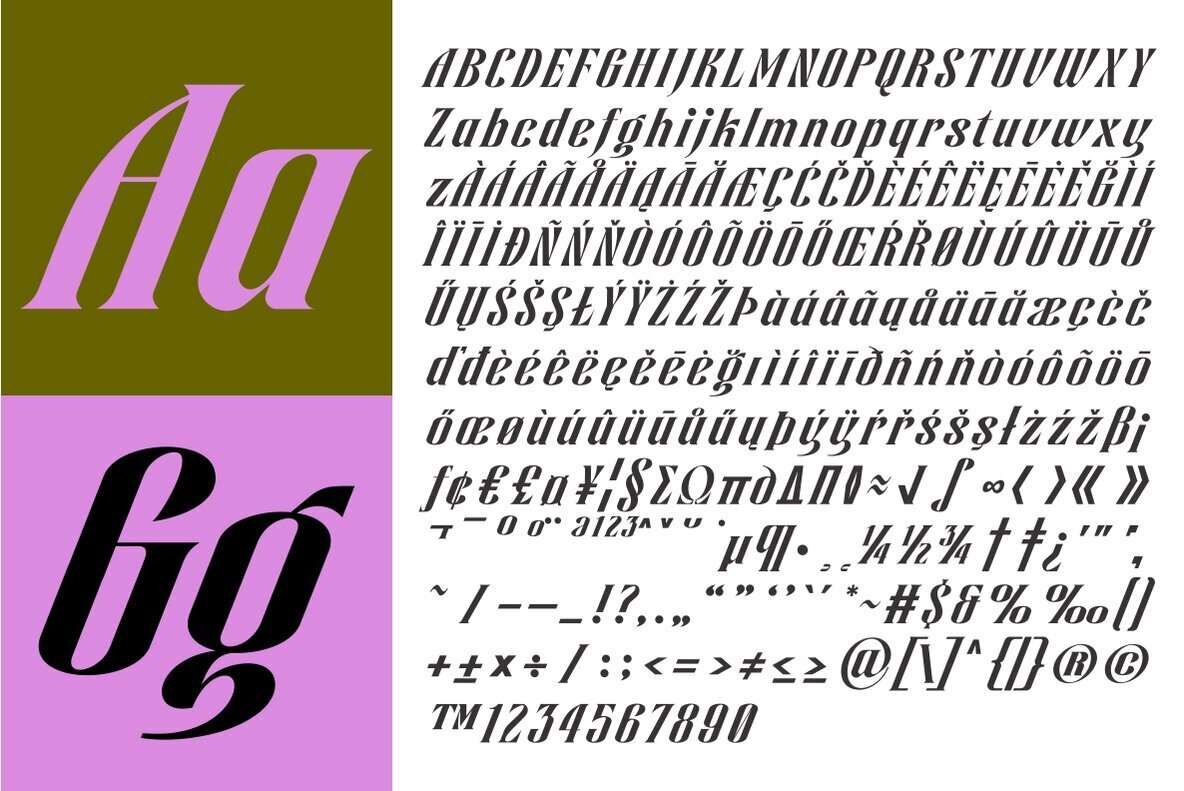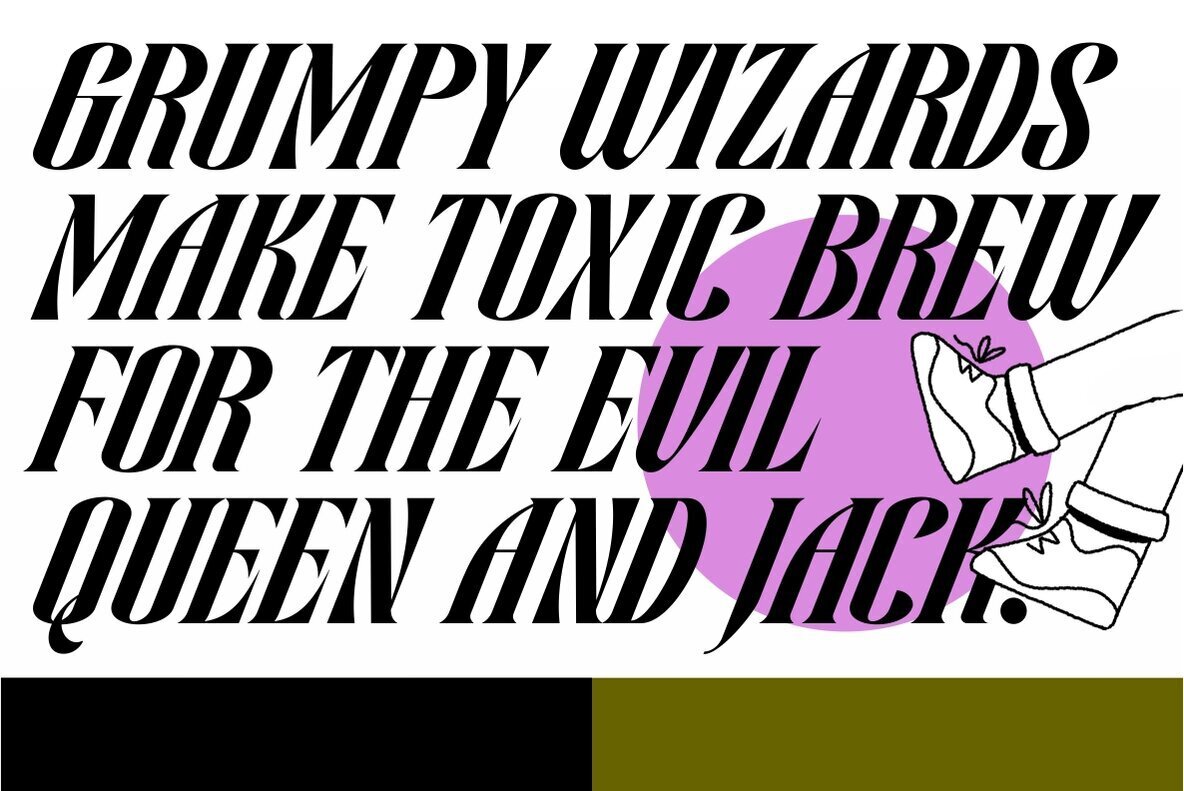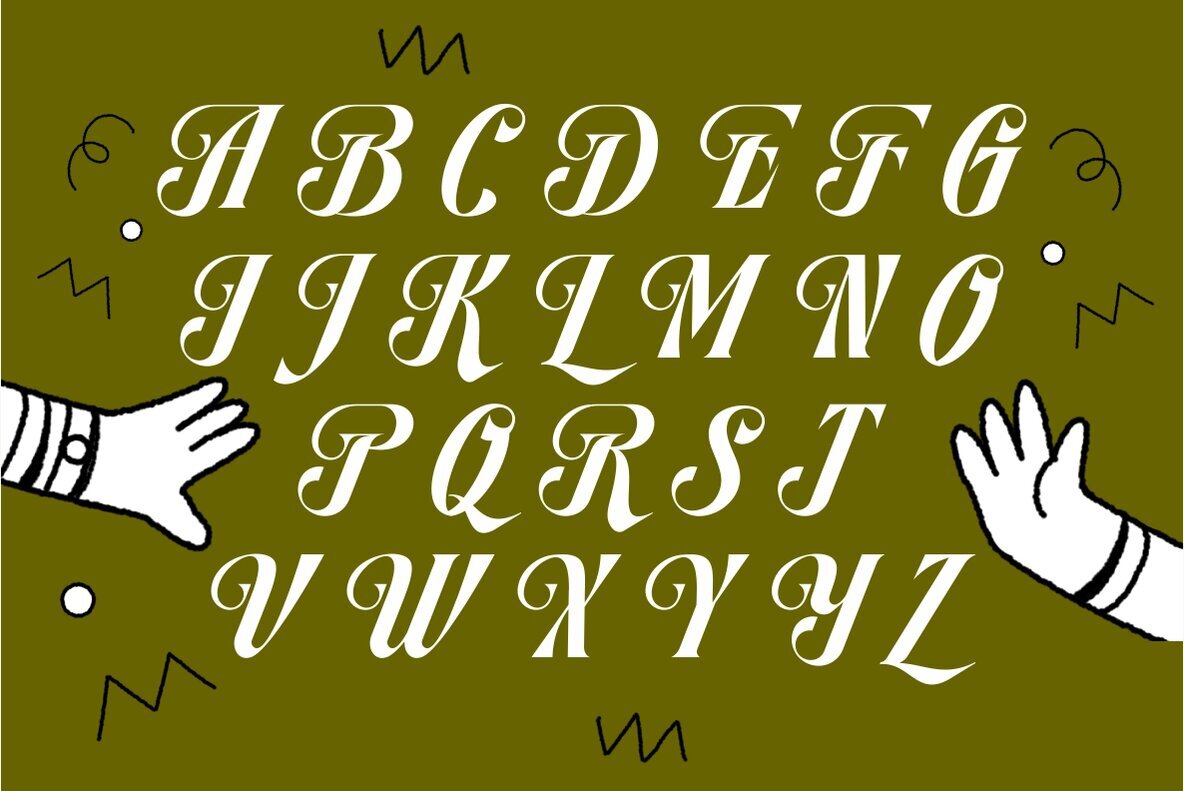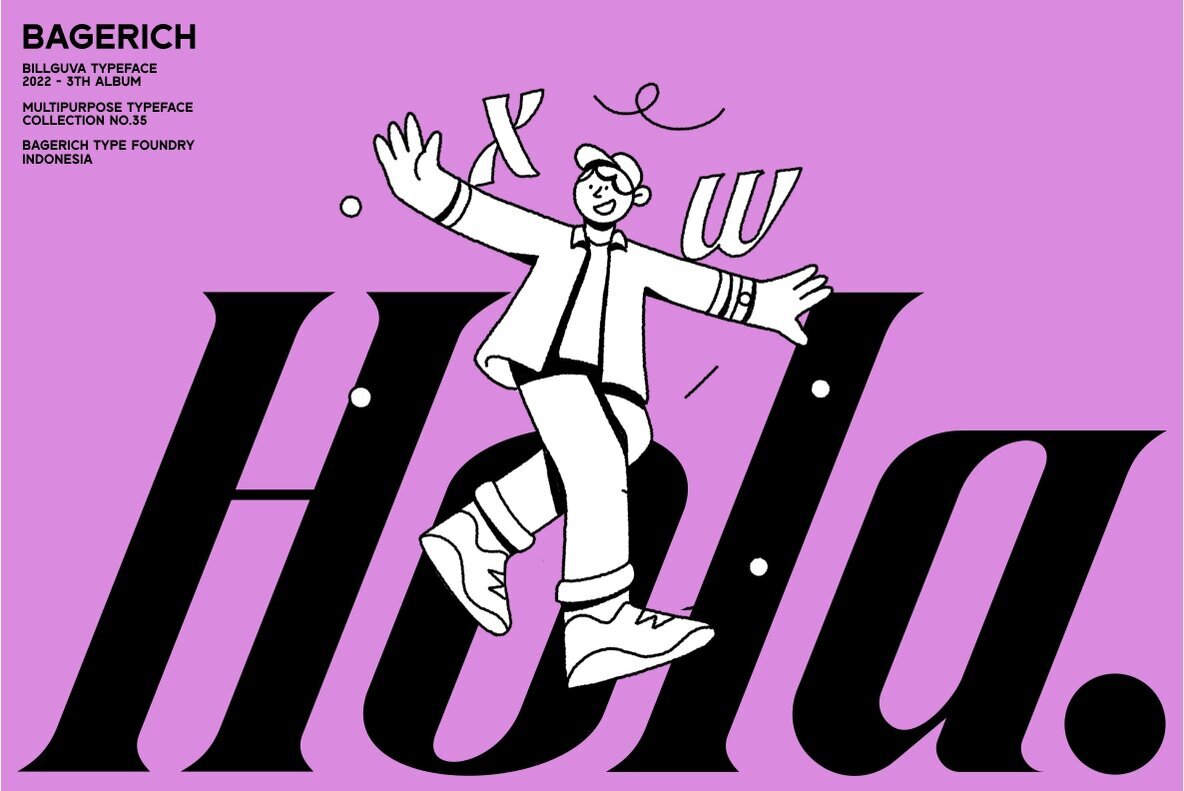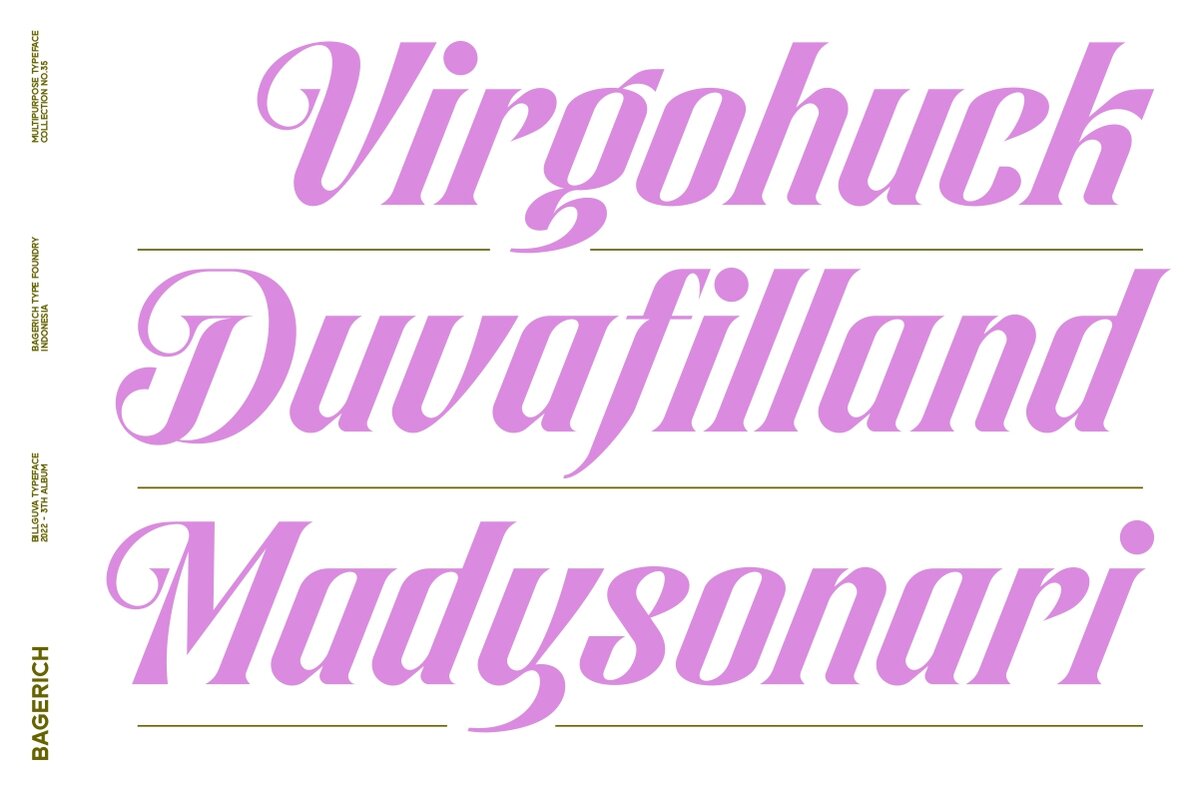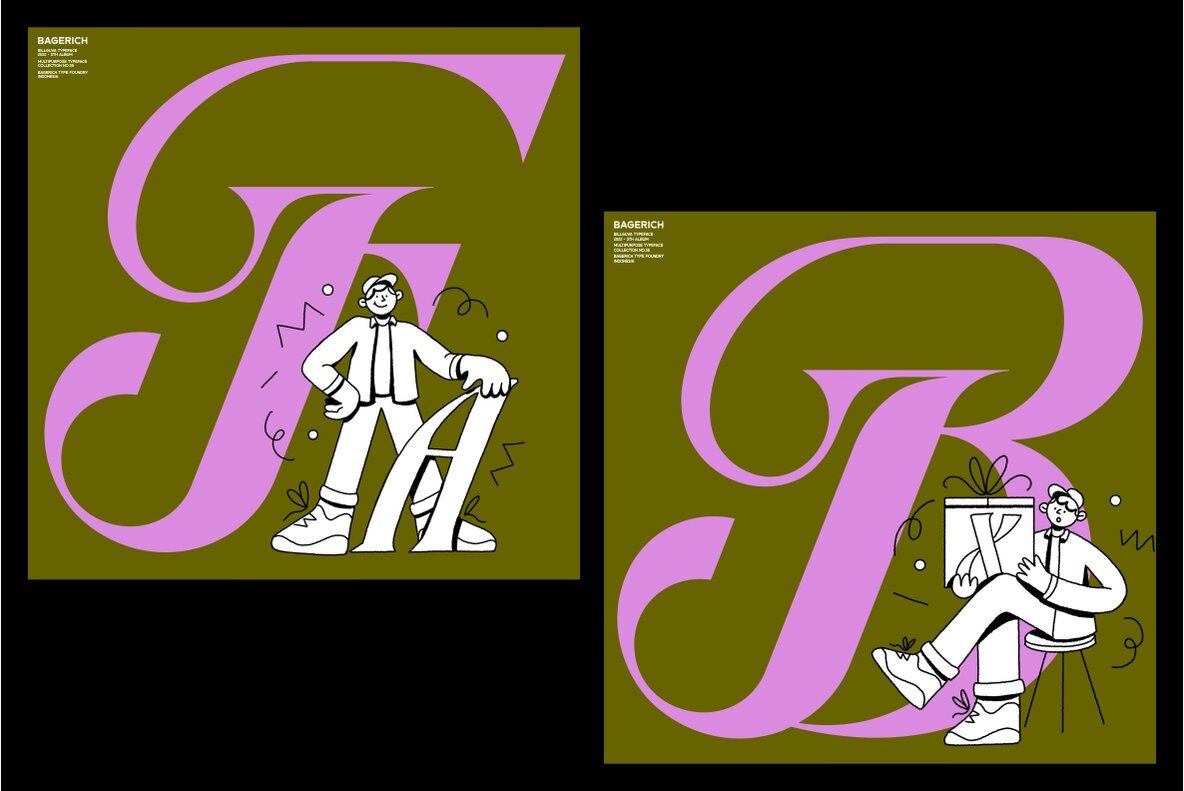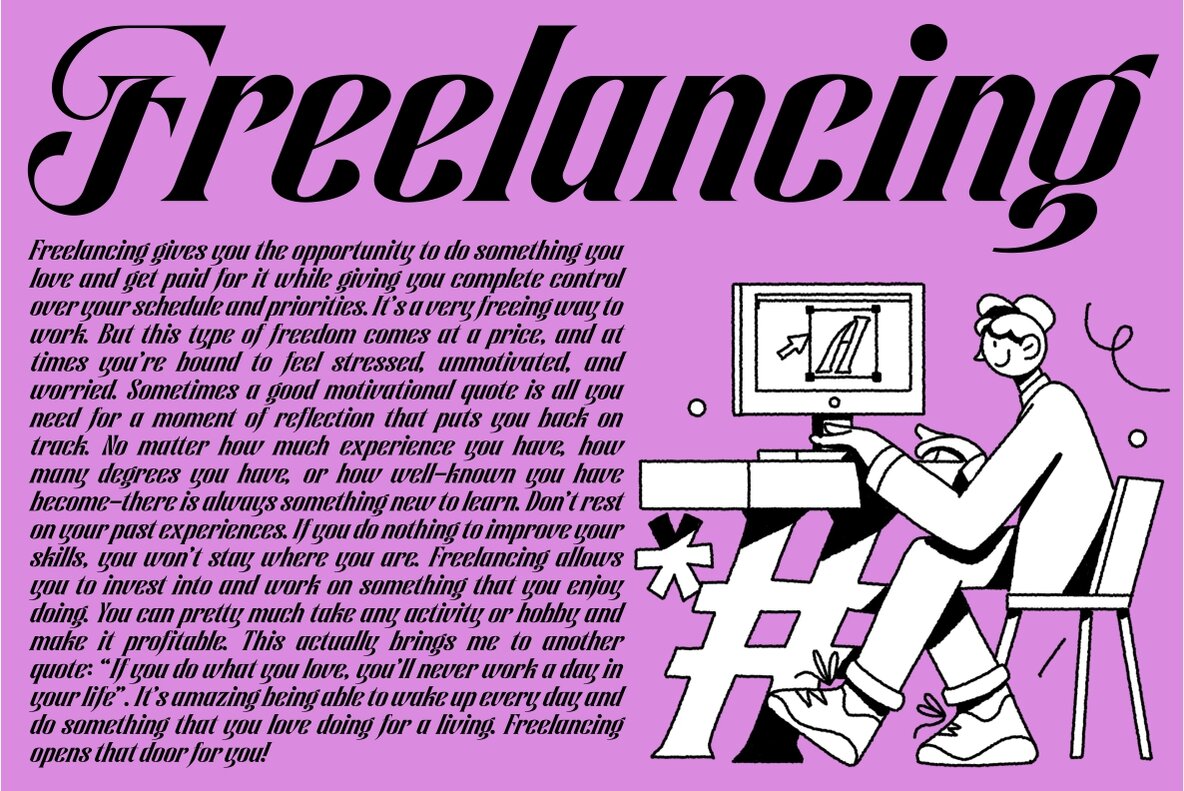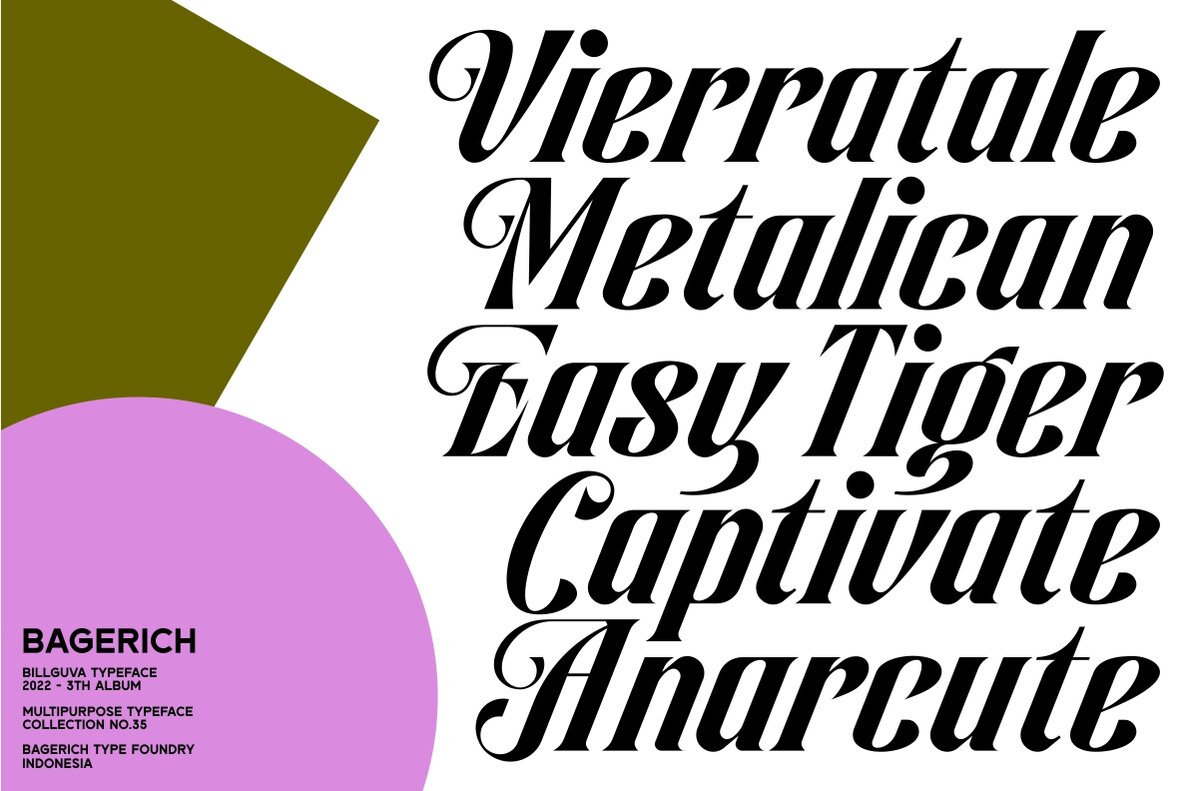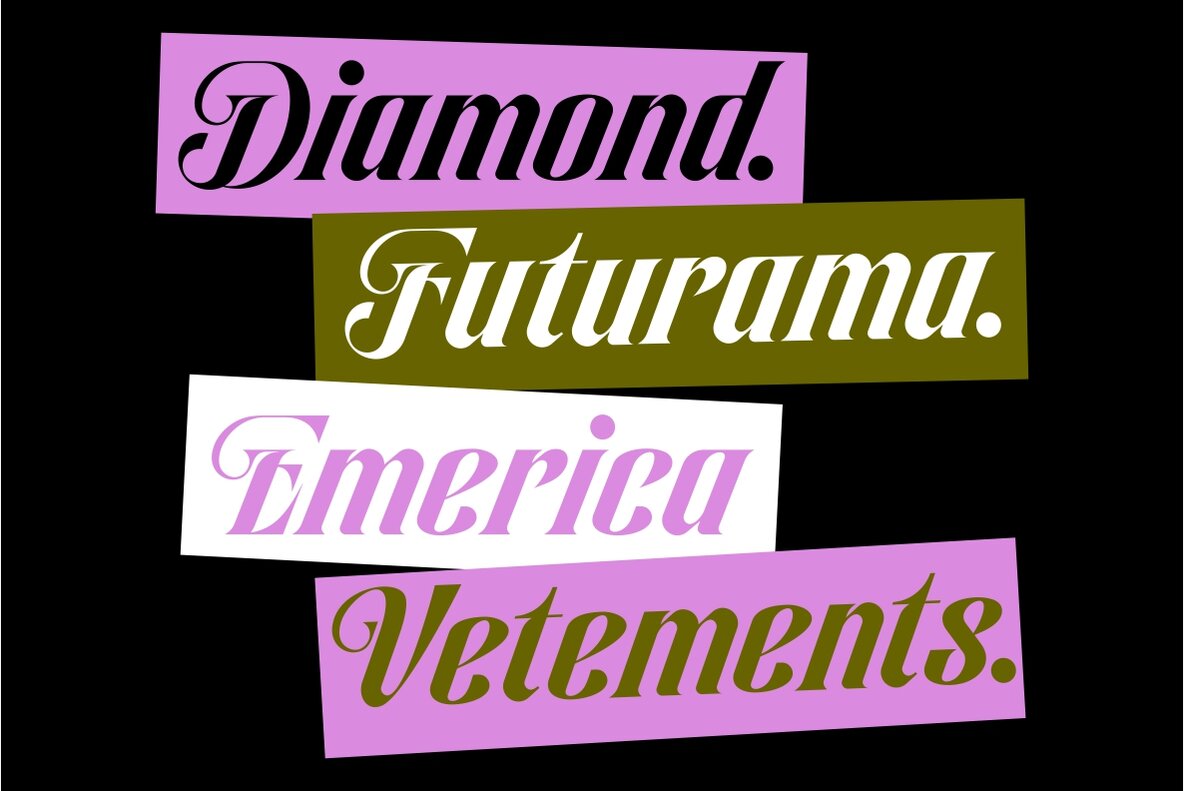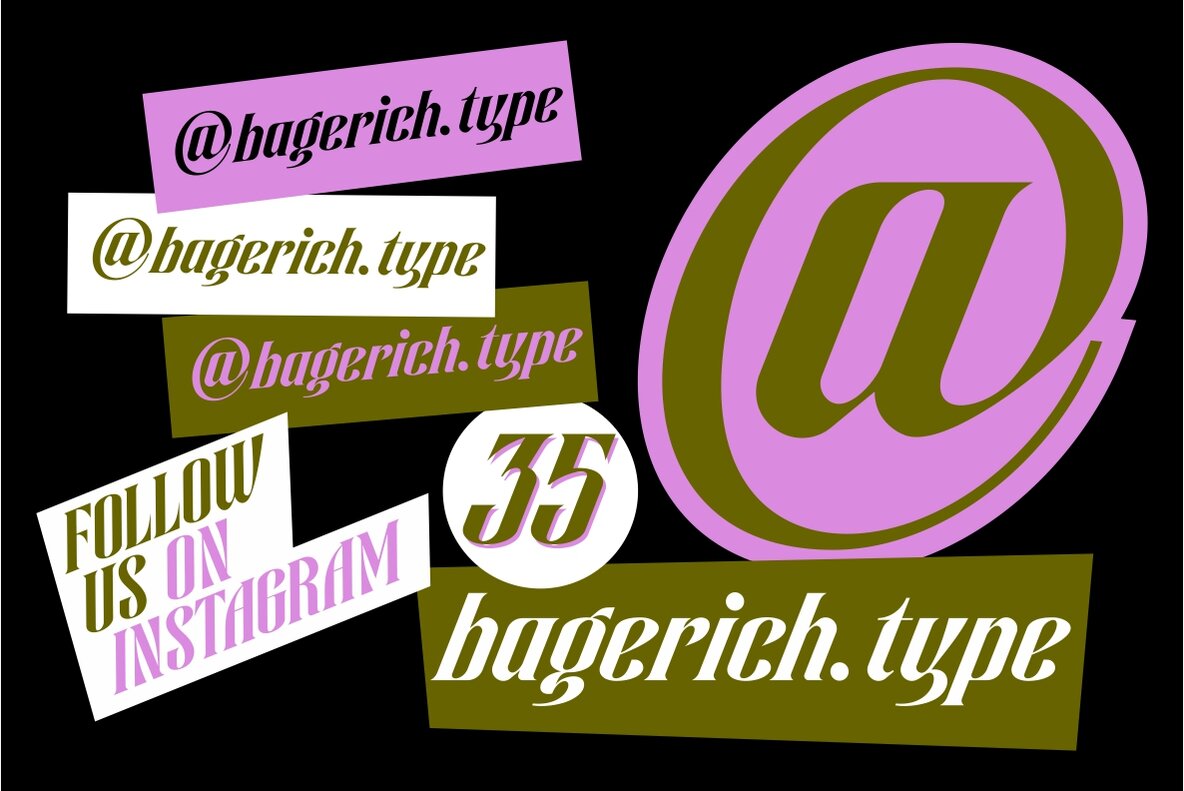
Billguva Font
Billguva
Billguva is a new typeface from Bagerich Type Foundry that was designed by Reza Rasenda & Riska Candra Dewi. The capital letters have some interesting alternatives which you can use to add more personality when needed!
Bagerich Type Foundry is an independent digital type foundry with a focus on display typefaces. founded in Bandung, Indonesia in the middle of 2019 by graphic designer, Reza Rasenda and Riska Candra Dewi.